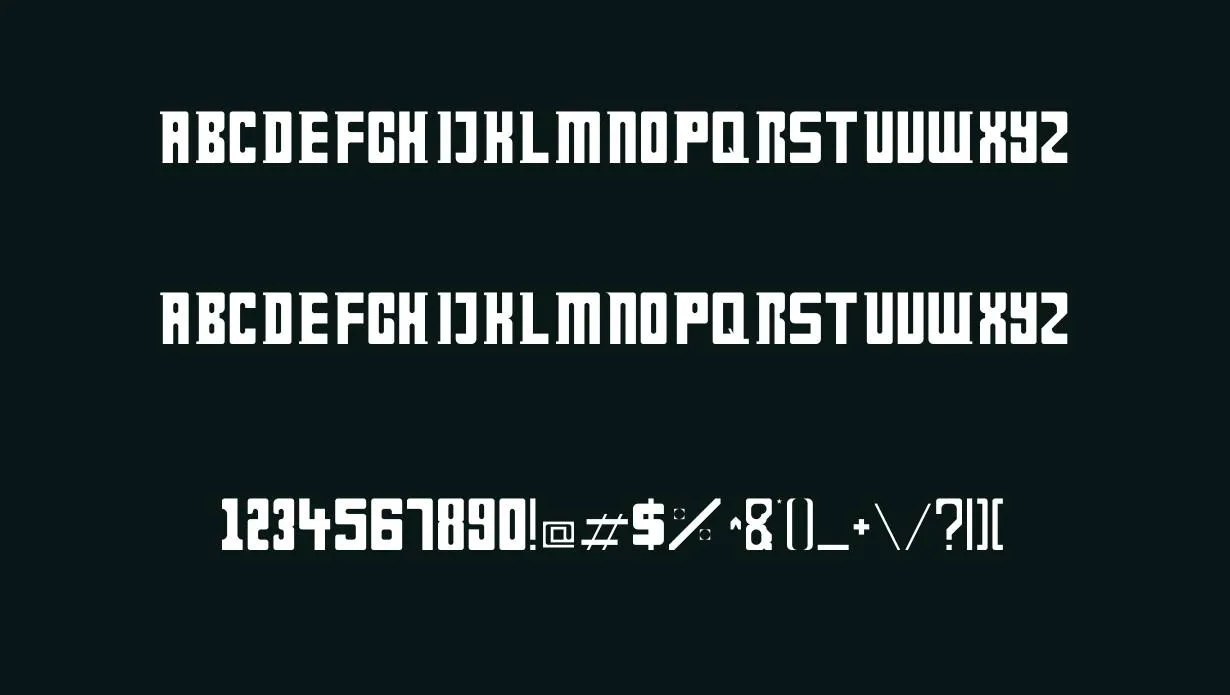
The Doctor Who Regular font brings a sense of sci-fi and futuristic aesthetics, making it a popular choice for space-themed or imaginative designs in Adobe CSS. It’s commonly used for science fiction book covers, fan art, and themed graphics.
In Adobe CSS, this font adds a distinctive and otherworldly vibe to headings, logos, and posters. In Microsoft Word, it’s frequently employed to infuse a spacey feel into titles and headings, catering to science fiction enthusiasts. Supported file formats for this font include TTF, OTF, and WOFF.